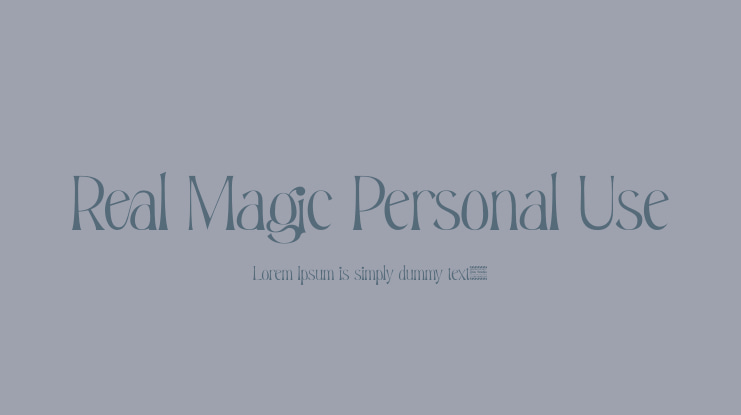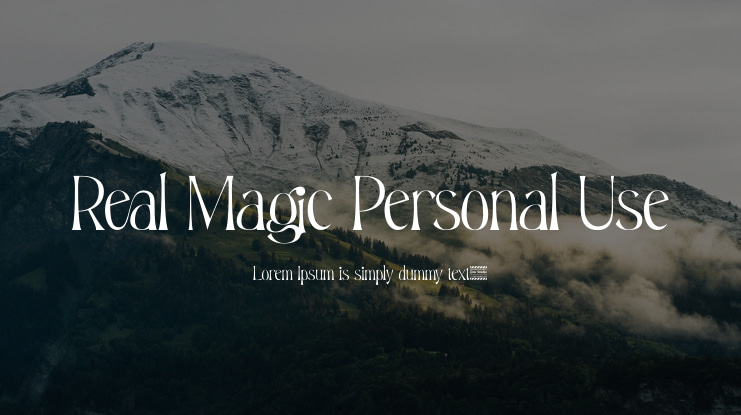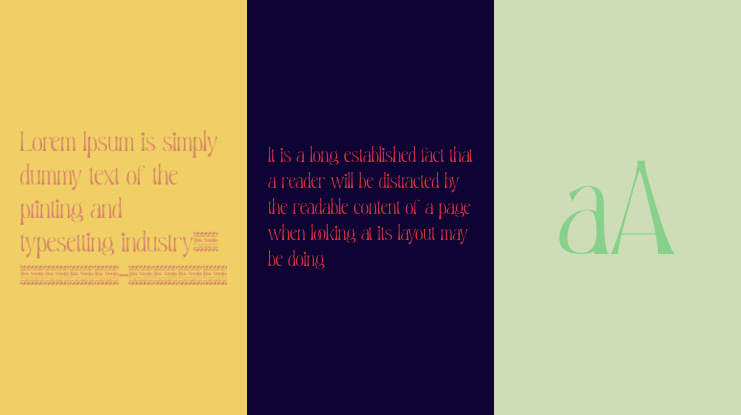
Real Magic designed primarily to bring out a modern and stylish view of what you make. This font contains upper & lowercase characters. Its light weights are well-suited for body text.